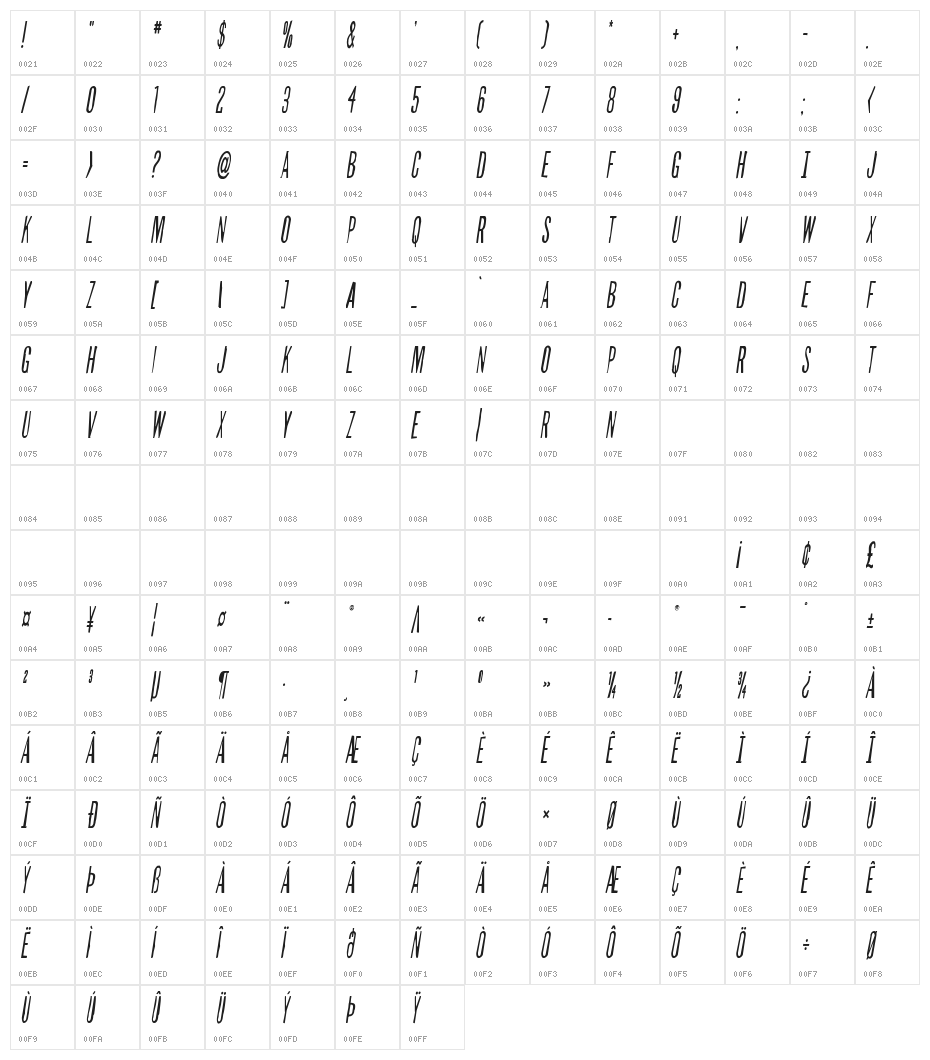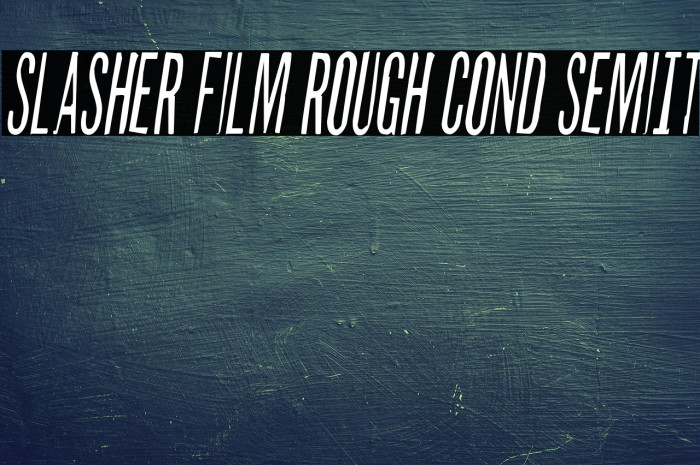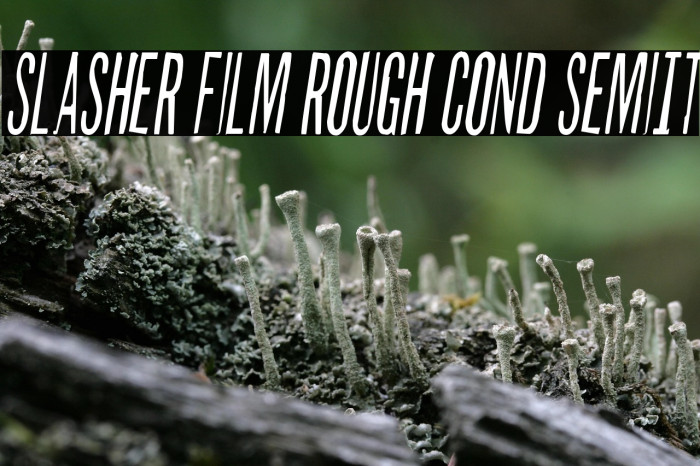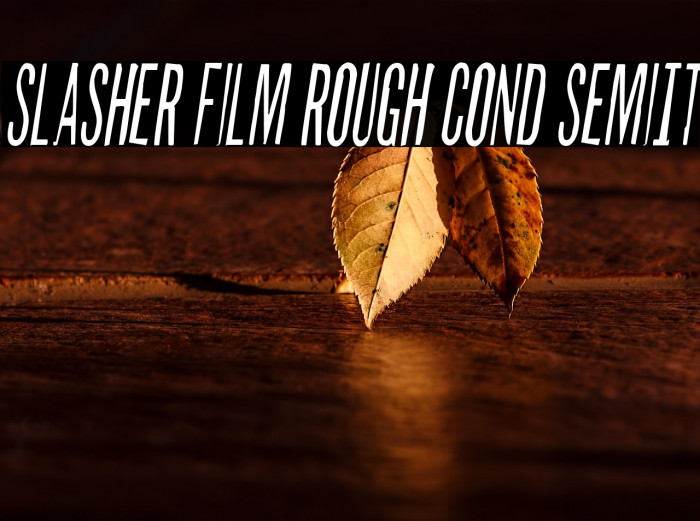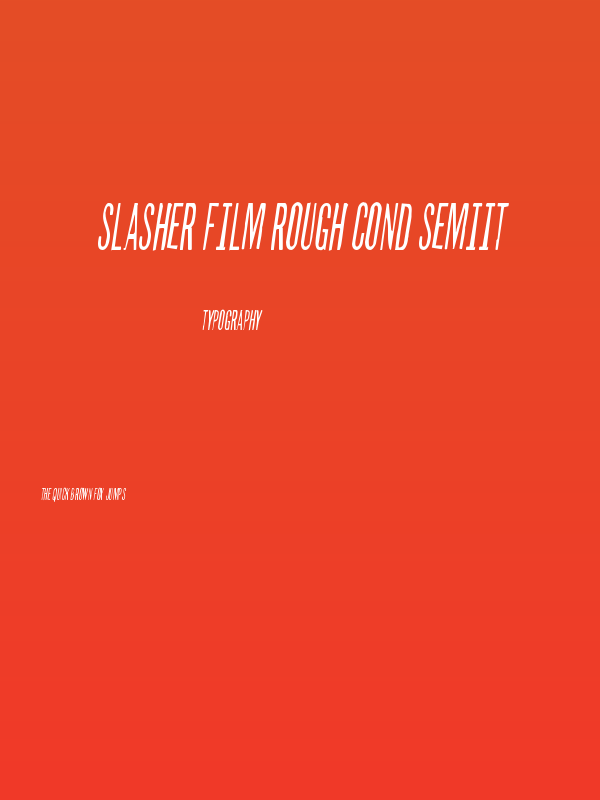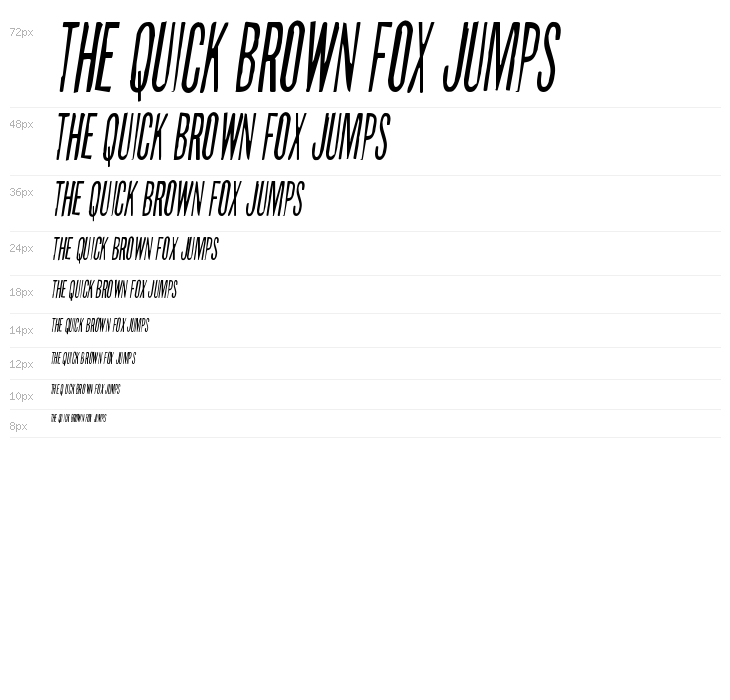
Slasher Film Rough Cond SemiIt Font
| Gesamtstil | Modern, Edgy |
| Vorgeschlagene Projekte | Perfect for horror movie posters, edgy branding, music album covers, and streetwear designs. |